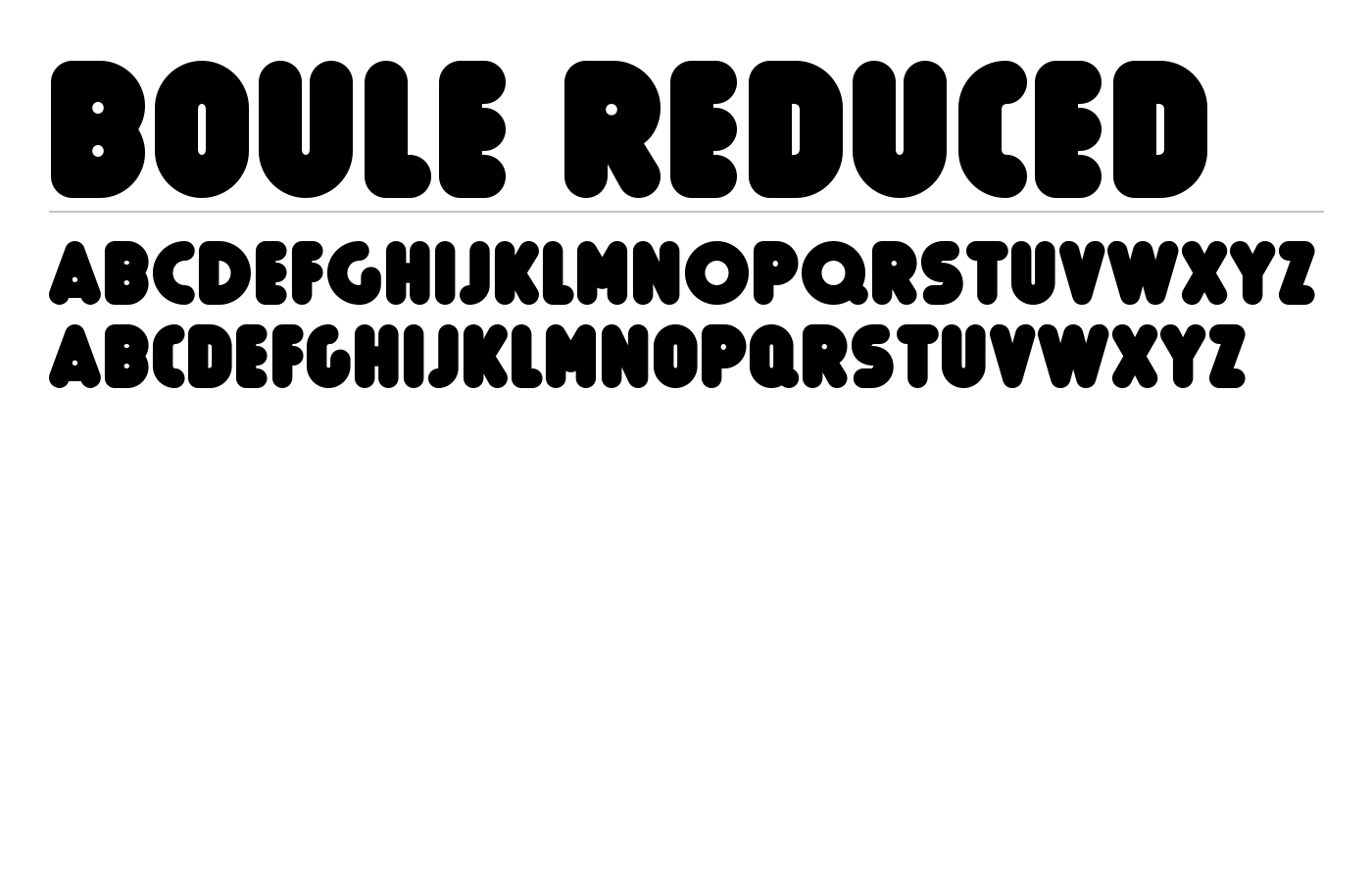
Boule Reduced is a bold and playful sans serif font with rounded, bubbly letterforms that create a friendly and approachable vibe. Its heavy weight and compact width make it great for eye-catching headlines, logos, or packaging that want to convey fun and energy. This font works well in creative and youthful branding where a modern, informal style is desired.
| Font family | Boule Reduced Font |
| Designer | Ingo Zimmermann |